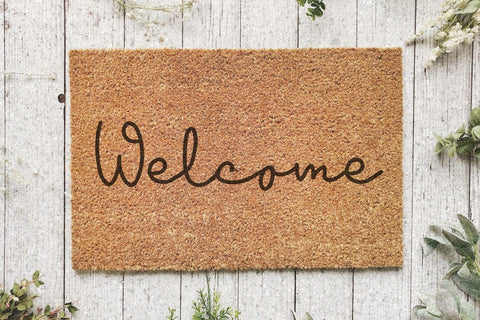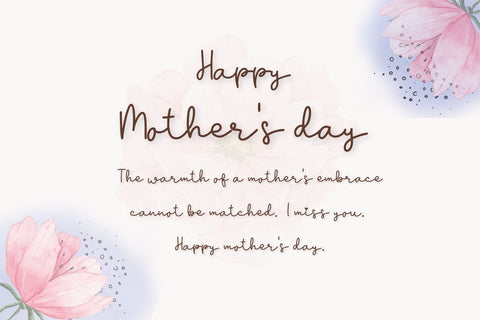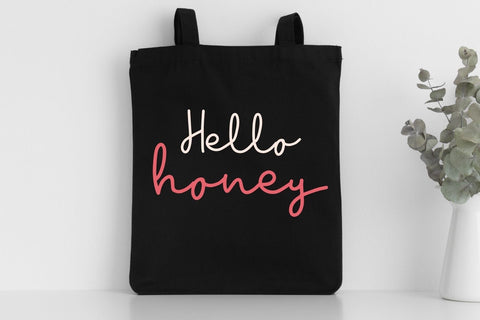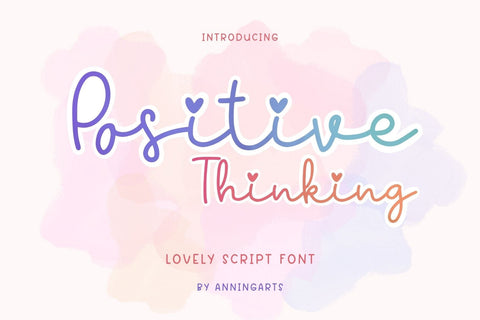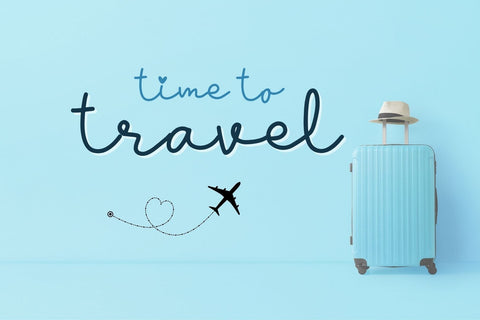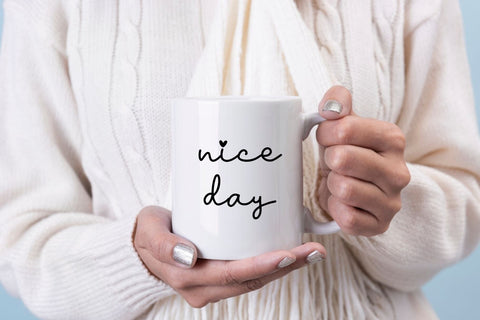
Positive Thinking - Lovely Script Font
Positive Thinking is a beautiful and romantic font that will evoke feelings of love and tenderness in any design. With its flowing and delicate strokes, this font is perfect for wedding invitations, love letters, and other projects where a lovely and romantic script is desired.